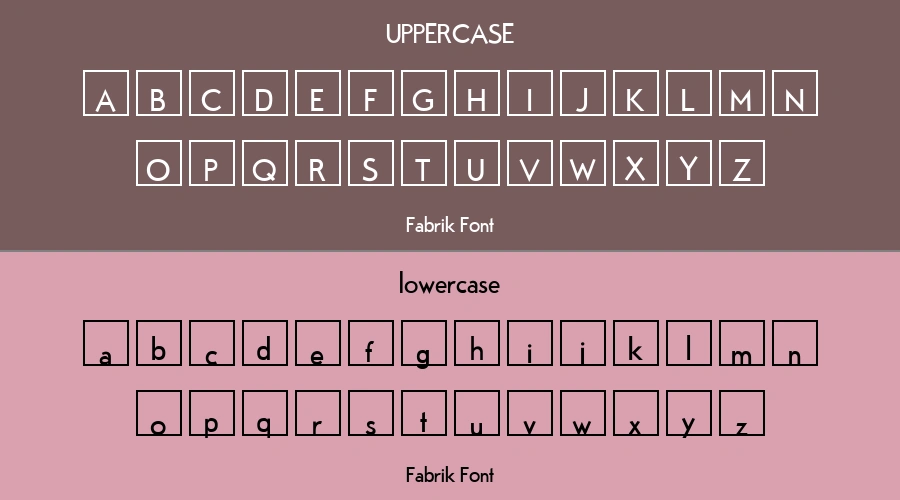
About Fabrik Font
Fabrik Font embodies typographic excellence through its masterful combination of organic curves and clarity. Created for marketing materials, this typeface delivers exceptional clarity and design innovation across all applications. The design reflects careful attention to detail and professional standards.
Advanced capabilities include distinctive expressive curves and versatile logotype support, giving designers creative control. When used in book chapters, Fabrik Font exhibits remarkable large format impact. The harmonious balance between spur details and artistic merit sets this typeface apart.